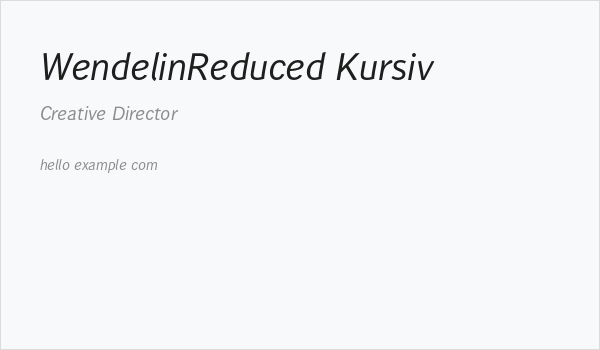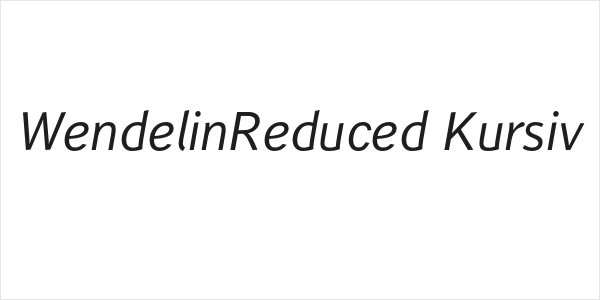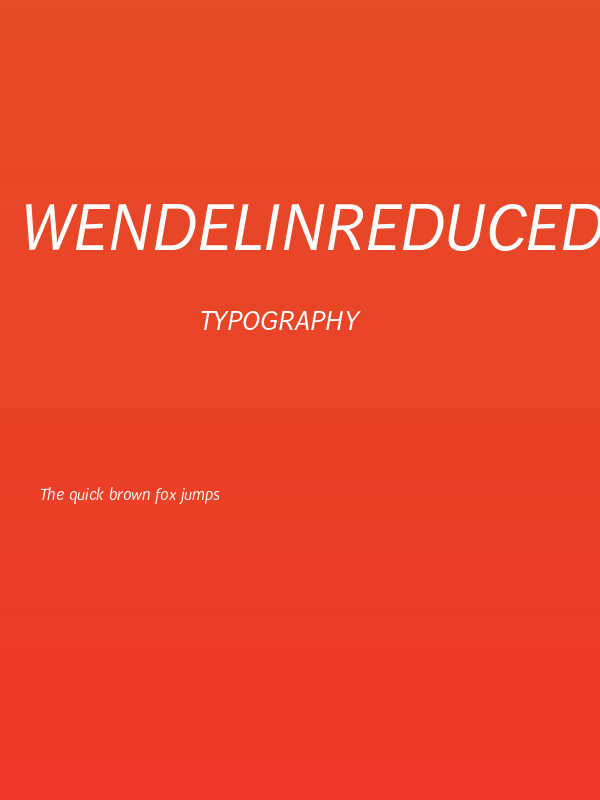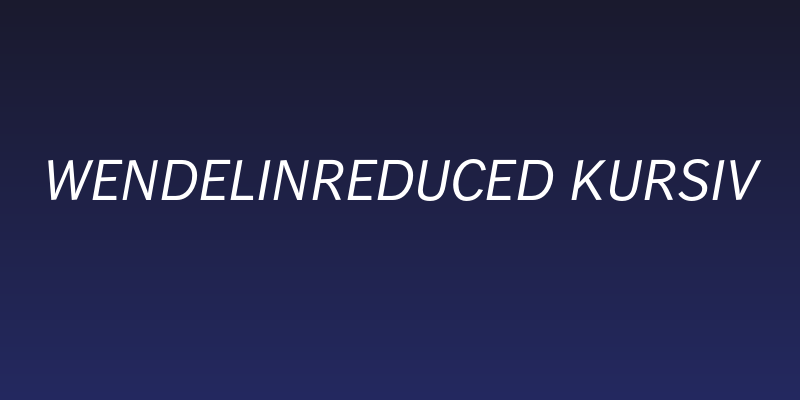
WendelinReduced-Kursiv Font
WendelinReduced-Kursiv Description
This font features a clean and modern sans-serif style with a slight italic slant, giving it a dynamic and forward-moving appearance. The characters are well-proportioned with a consistent stroke width, contributing to its legibility and versatility. The uppercase letters are bold and assertive, while the lowercase letters maintain a friendly and approachable feel. The overall design is sleek and professional, making it suitable for a wide range of applications. The font's simplicity and elegance make it ideal for both digital and print media, ensuring readability across various sizes and resolutions.
Proposed ProjectsIdeal for branding, advertising, web design, and editorial projects where a modern and clean look is desired.